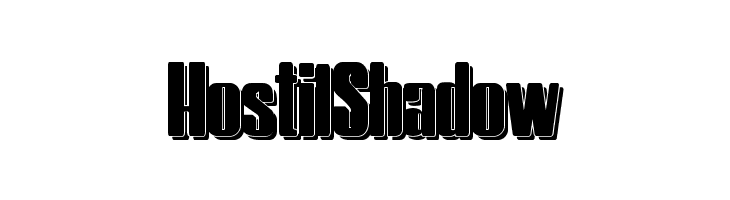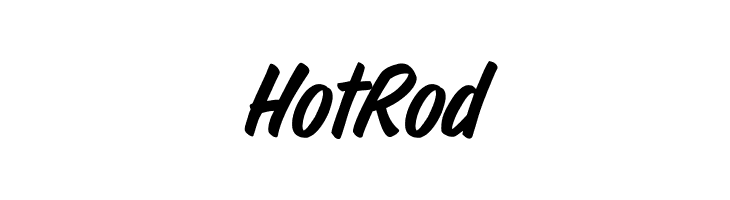
A playful, bold, hand-drawn style font with rounded, thick letters.
A bold, playful font with a hand-drawn, casual style.
A bold, high-contrast font with sharp angles and modern geometric elements.
A bold, dynamic script font with a vintage, hand-painted feel.
A modern, geometric font with tall, narrow characters and consistent stroke width.
A fluid and elegant script font with a handwritten feel.